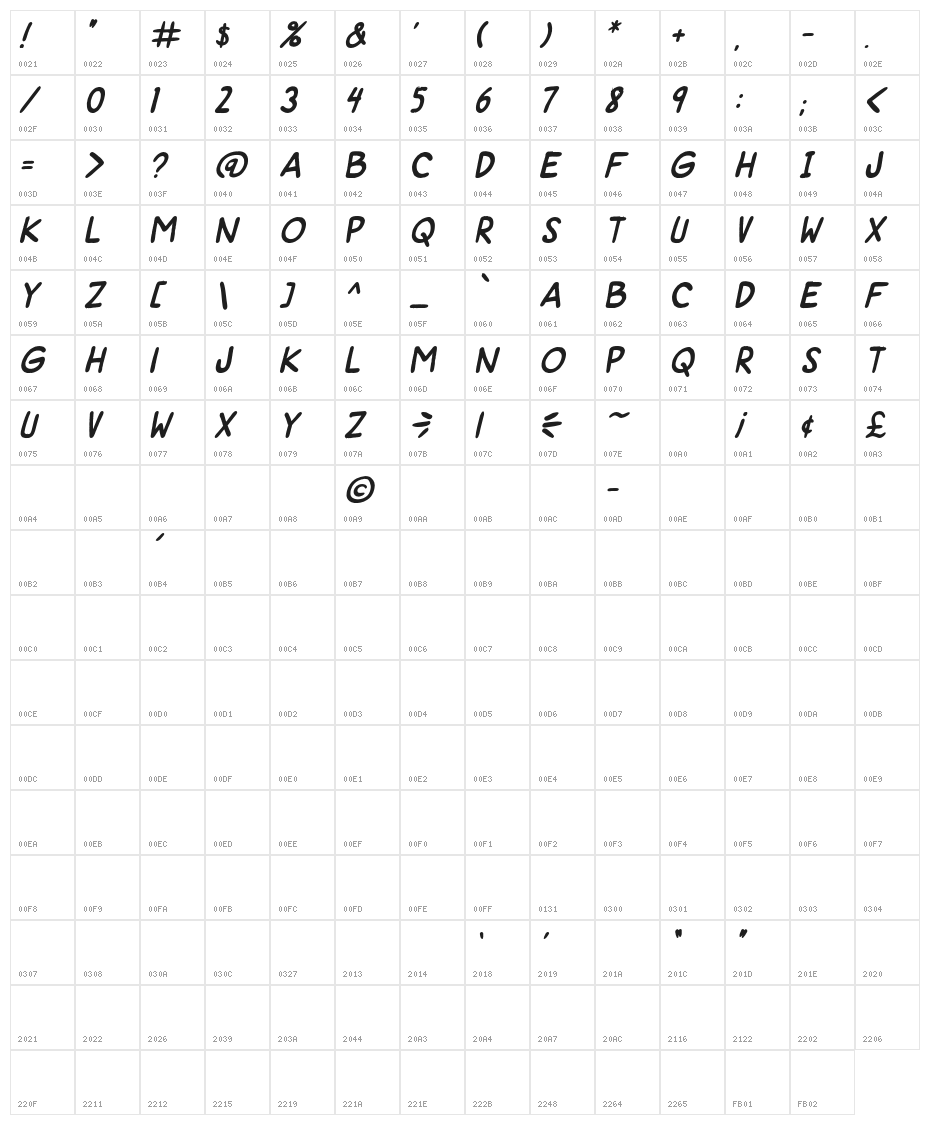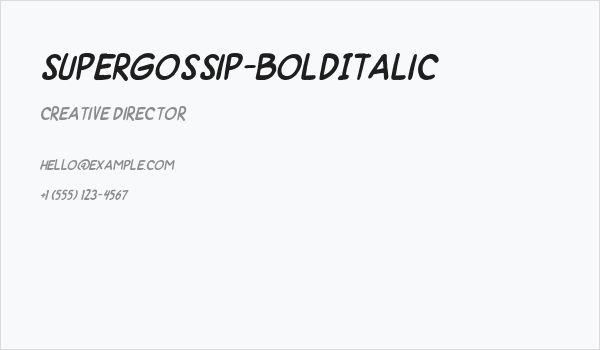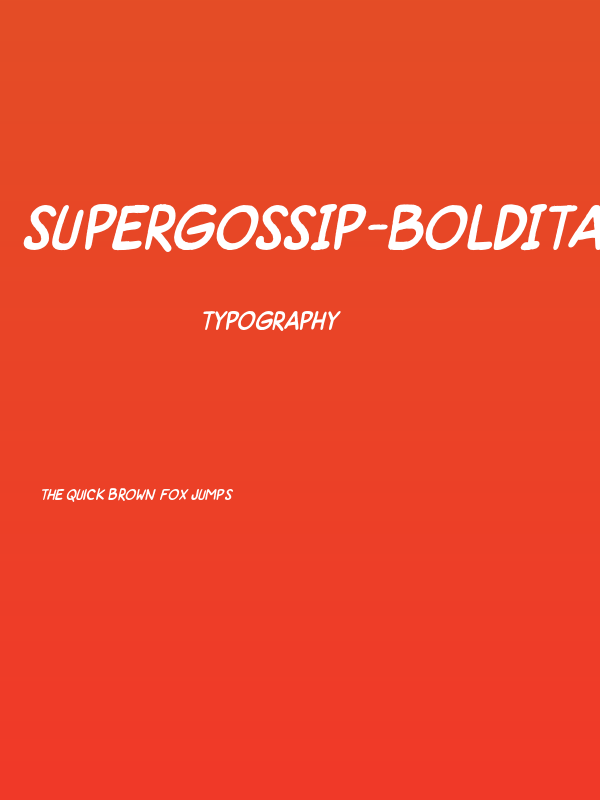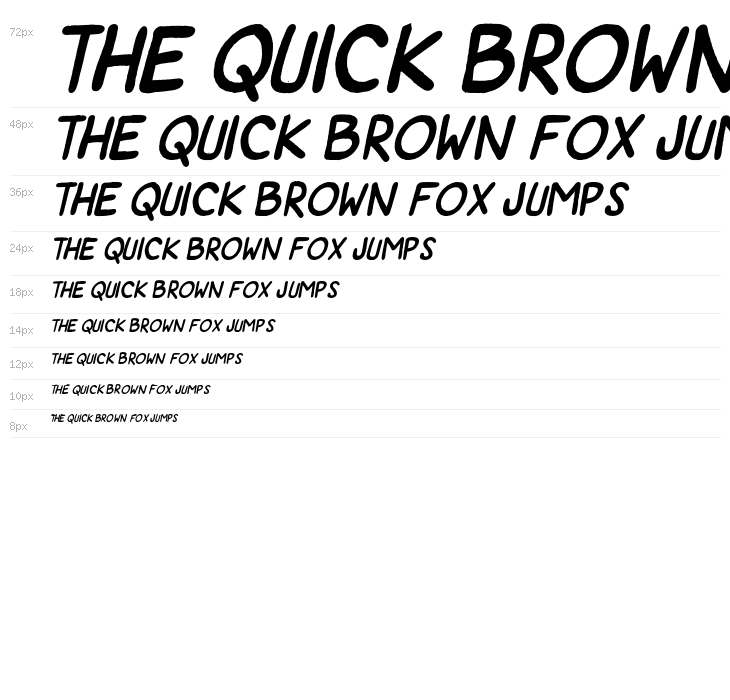
SuperGossip-BoldItalic Font
SuperGossip-BoldItalic Description
This font features a bold and italicized style, characterized by its dynamic and energetic appearance. The letters are slightly slanted, giving a sense of movement and fluidity. The strokes are thick and consistent, providing a strong visual impact. The characters are well-spaced, ensuring readability while maintaining a cohesive look. This font's playful yet assertive style makes it suitable for projects that require a bold statement.
| Proposed Projects | Ideal for branding, advertising, posters, and headlines that need to capture attention. |